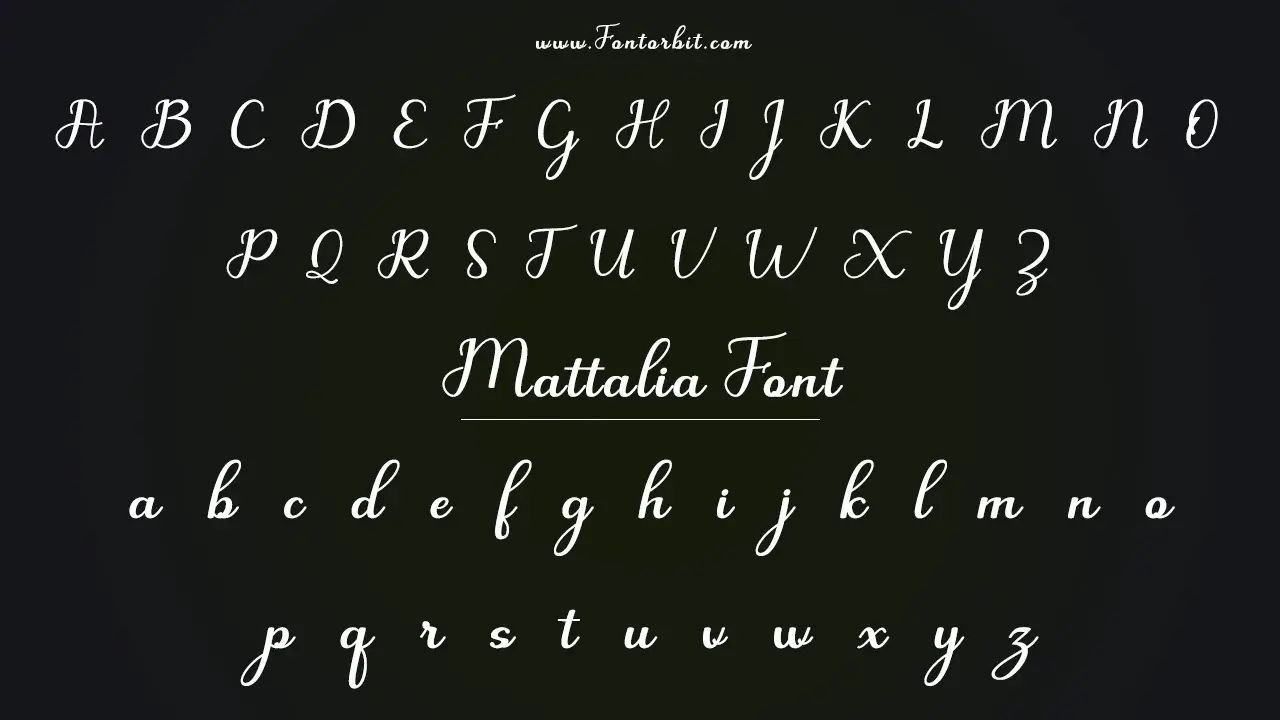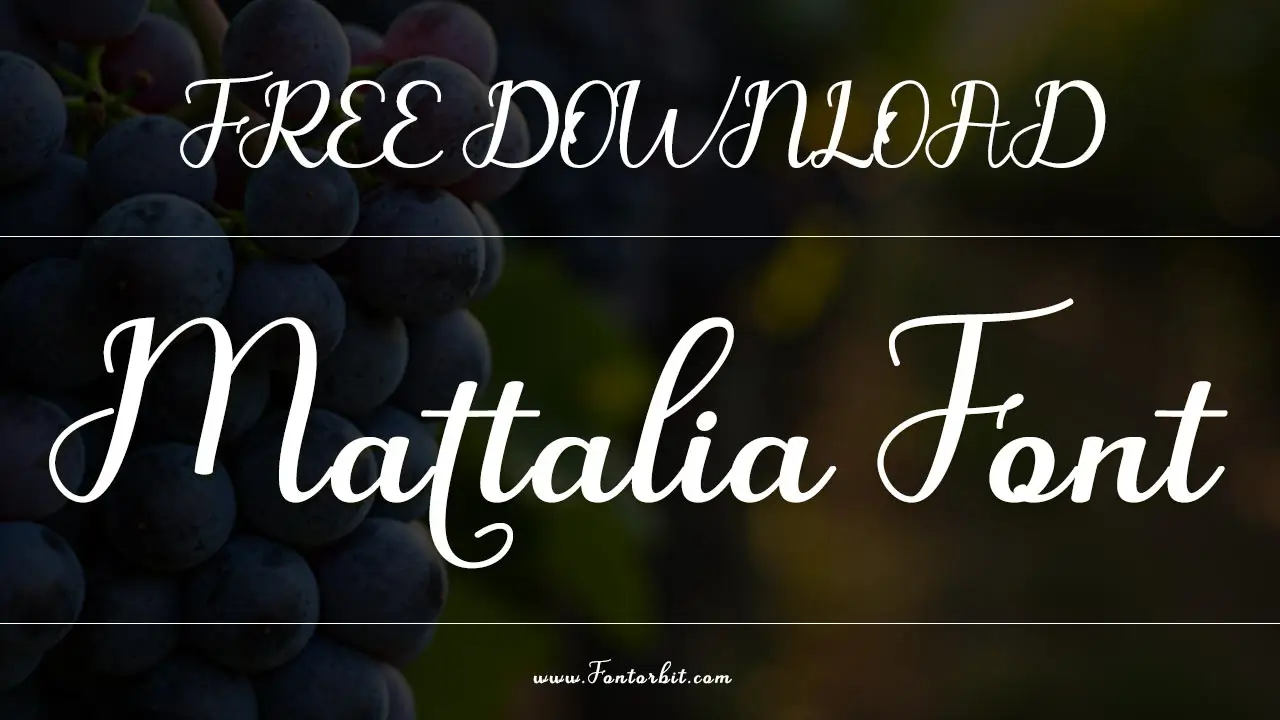
Mattalia Font is a sophisticated script font known for its elegance and versatility. Designed by Gatype, this handwritten font is widely used in branding, logo design, posters, and greeting cards. With its decorative swashes and vintage charm, Mattalia is perfect for both personal and commercial use, ensuring a touch of artistry in every project.
| Style: | Calligraphy |
Why Choose Mattalia Font?
- Versatile: Ideal for branding, packaging, books, and digital designs.
- Elegant Style: Combines a signature font look with decorative elements.
- Supports Multiple Languages: Perfect for both English and Arabic text.
- Great Pairing: Works well with Virginia font, condensed fonts, and gothic styles.
Where To Use Mattalia Font
- Branding & Logos – Adds sophistication to business identity.
- Posters & Labels – Enhances promotional and product packaging.
- Books & Magazines – Offers a stylish touch to text and titles.
- Websites & Digital Content – Creates eye-catching headlines.
- Greeting Cards & Invitations – Brings elegance to personal messages.
- Applications & Software – Used in UI/UX design elements.
Mattalia vs. Other Fonts: Comparison
| Feature | Mattalia Font | Typewriter Font | Gothic Font |
|---|---|---|---|
| Style | Script, Decorative | Monospaced | Bold & Edgy |
| Best Use Case | Branding, Posters | Documents, UI | Horror Themes |
| Swashes | Yes | No | Limited |
| Language Support | English, Arabic | Mostly English | Varies |
1.What Makes Mattalia Font Unique?
Mattalia is a blend of script and signature font styles, offering an incredibly versatile style with decorative swashes.
3.Does Mattalia Font Support Multilingual Characters?
Yes! Mattalia includes characters for English and Arabic, making it suitable for diverse design needs.
4.What Fonts Pair Well With Mattalia?
It works well with Virginia font, condensed fonts, and gothic fonts to create balanced designs.
6.Is Mattalia A Serif Or Sans-Serif Font?
It is a script font with elegant curves, more decorative than a traditional serif font.